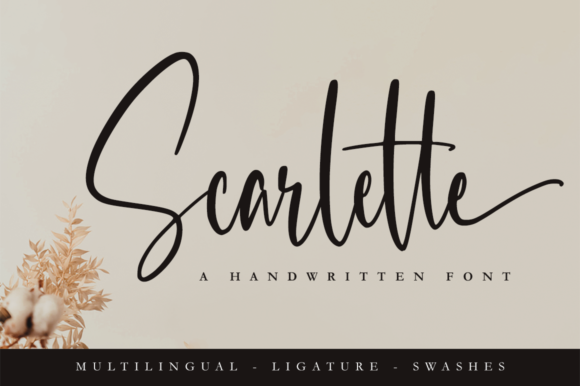
Welcome to the world of Scarlette, a ravishing handwritten font that promises to captivate and charm. Experience the allure of its elegant, graceful strokes and the harmonious balance of its characters. With Scarlette, you'll unlock a new realm of captivating designs that will leave a lasting impression.
Unleash the beauty of your creative projects with Scarlette. Its romantic allure effortlessly adds a touch of enchantment to any design, transforming ordinary words into works of art. Scarlette is more than just a font; it's an expression of your refined taste and a testament to your pursuit of excellence.
Scarlette's versatility knows no bounds. Watch as it seamlessly blends with various design styles, enhancing your projects with a touch of sophistication. Whether you're crafting heartfelt invitations, enchanting logos, or captivating social media posts, Scarlette will elevate your creations to new heights.
Step into the realm of timeless elegance with Scarlette. Its meticulously crafted characters dance across the page, creating a visual symphony that captures hearts and ignites imaginations. Allow the allure of Scarlette to infuse your projects with a touch of magic, transforming them into captivating masterpieces.
Indulge in the beauty of Scarlette, a font designed to evoke emotions and inspire creativity. Its graceful curves and delicate details will breathe life into your designs, adding a layer of elegance and charm that will leave your audience spellbound. Transform your creative visions into tangible works of art with the timeless allure of Scarlette.